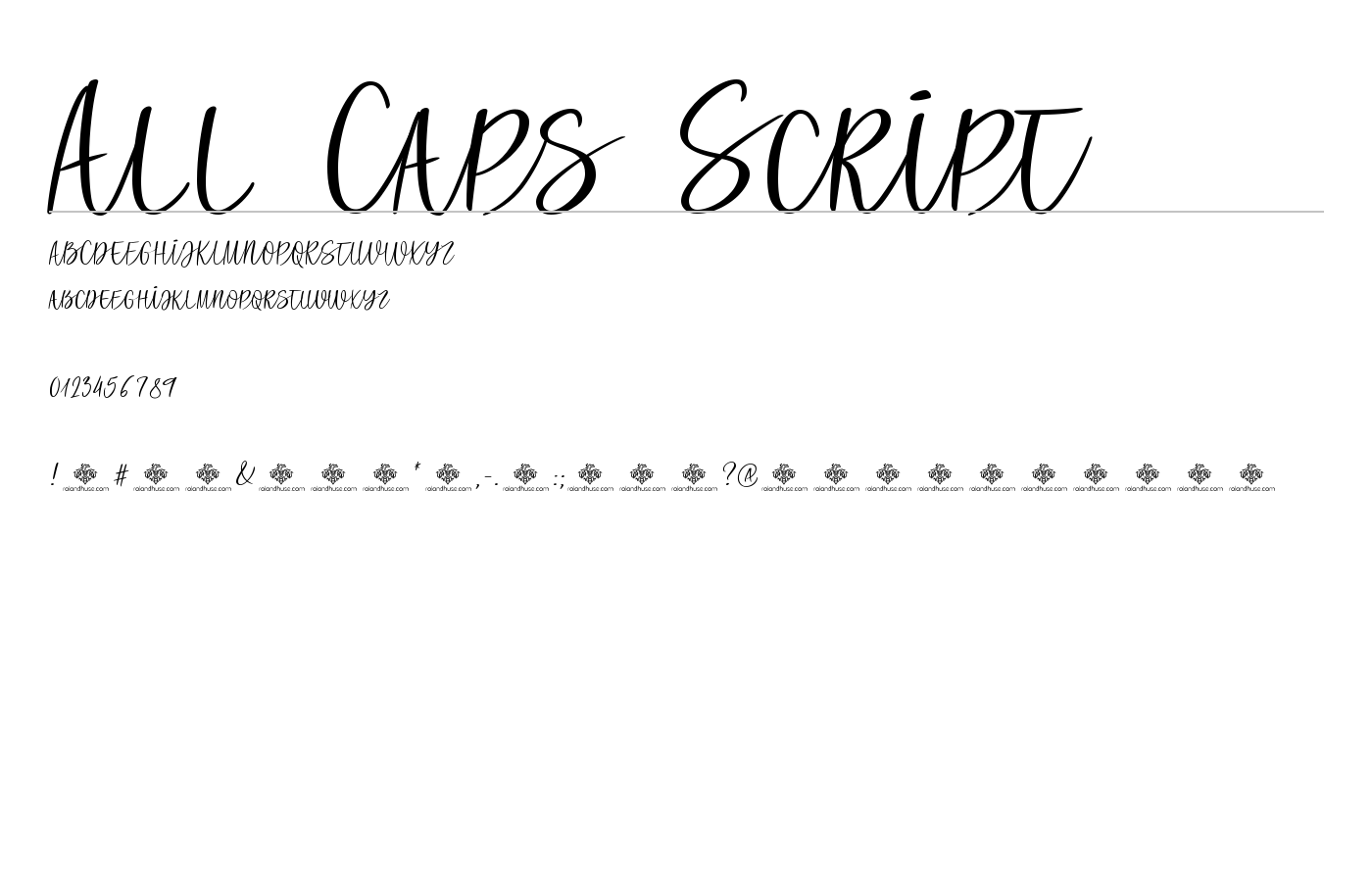
All Caps Script is a stylish, handwritten script font that features tall, slender letterforms with graceful, flowing strokes. Its thin, elegant lines and consistent stroke weight give it a modern, sophisticated feel, making it perfect for fashion branding, invitations, and creative headlines that need a personal, artistic touch. This font works well when you want to convey a sense of elegance and creativity while maintaining clear readability.
All Caps Script Font
About All Caps Script Font
| Font family | All Caps Script Font |
| Designer | Roland Hüse |